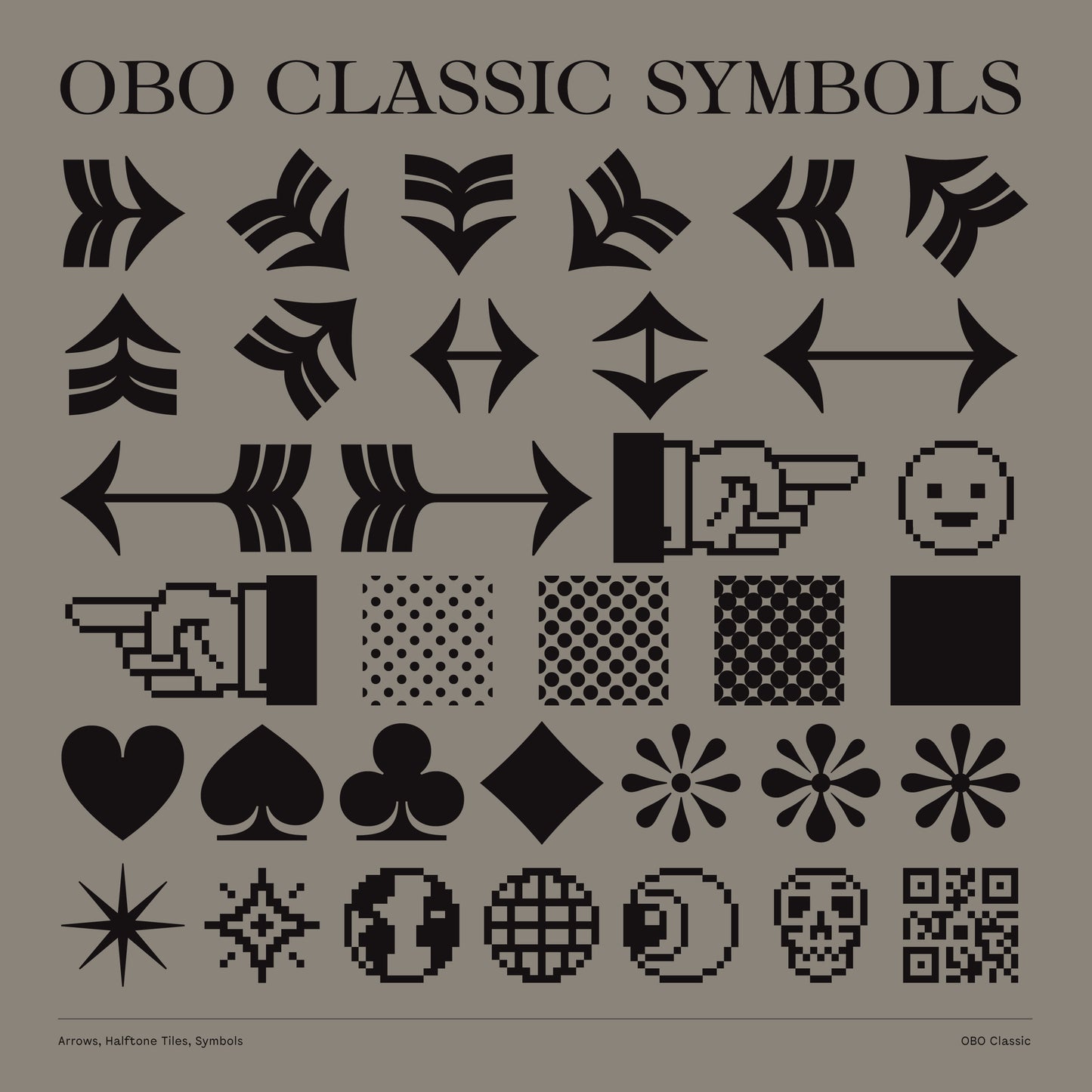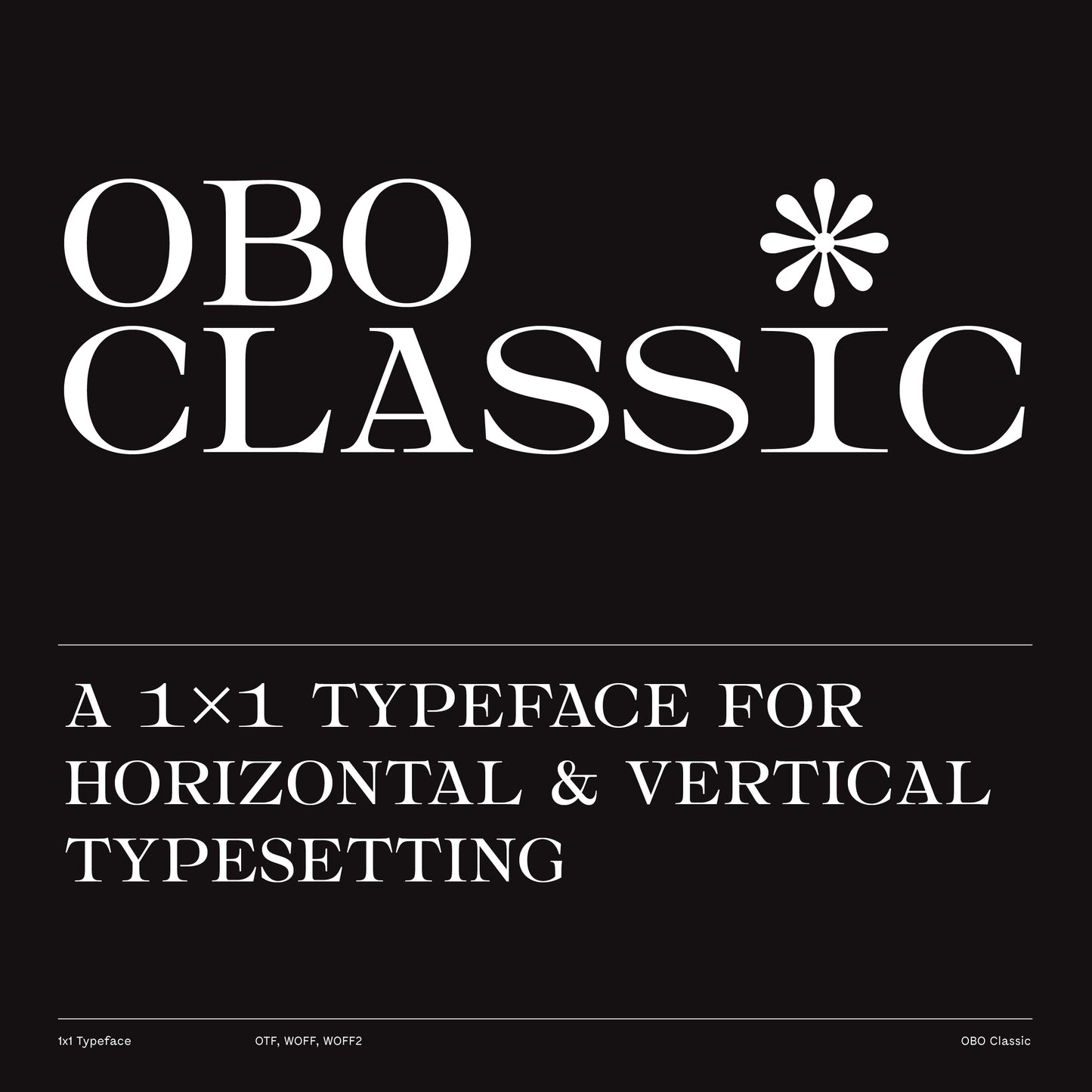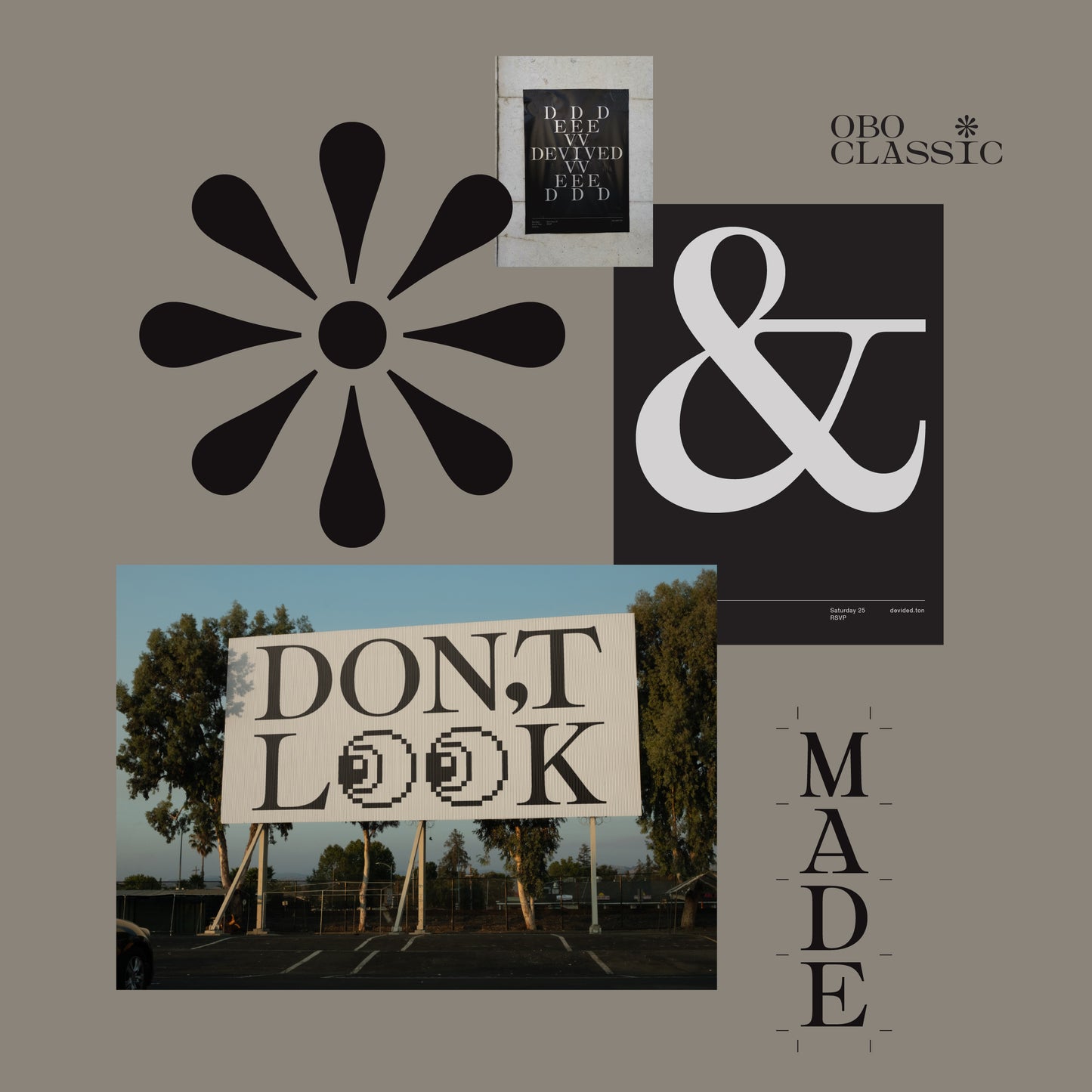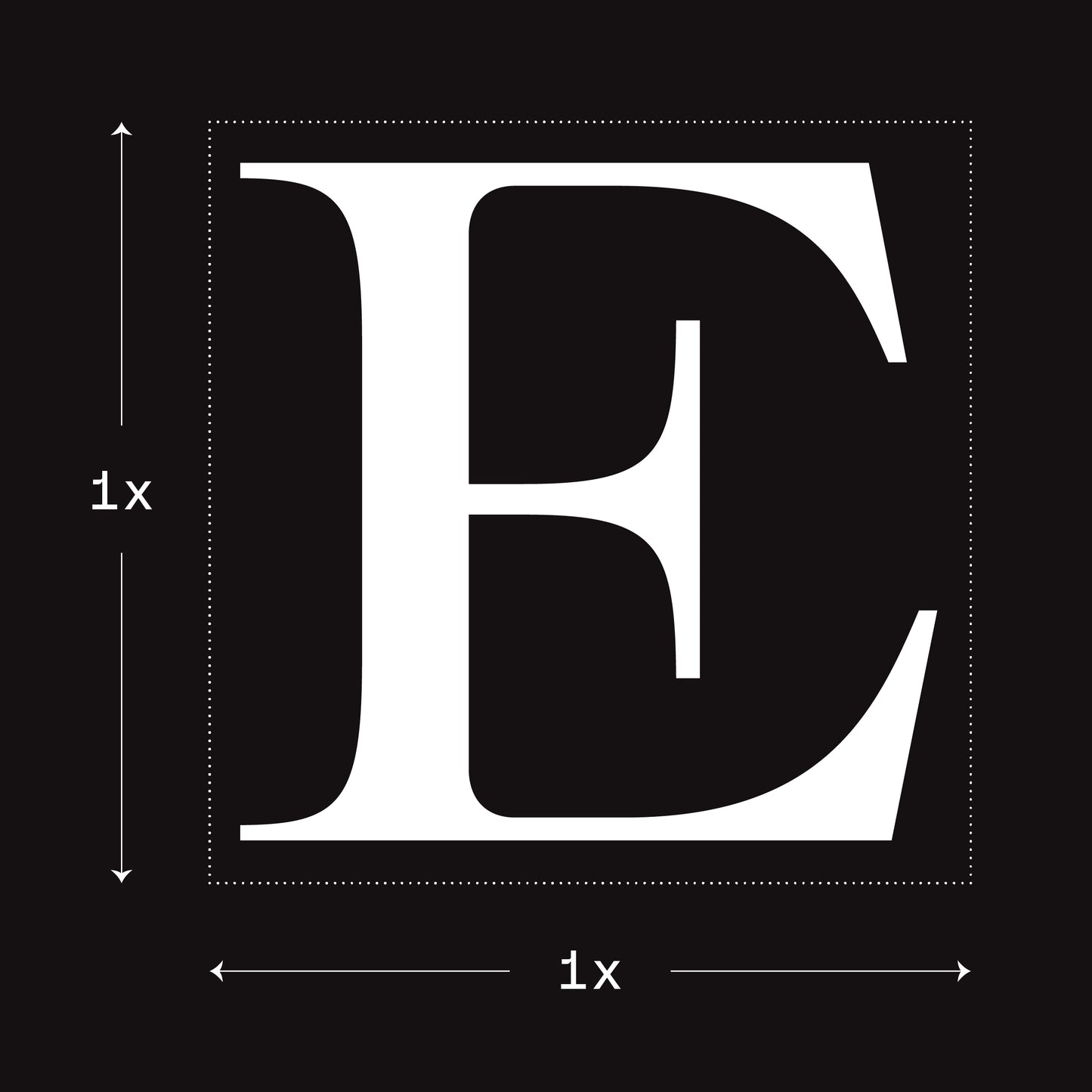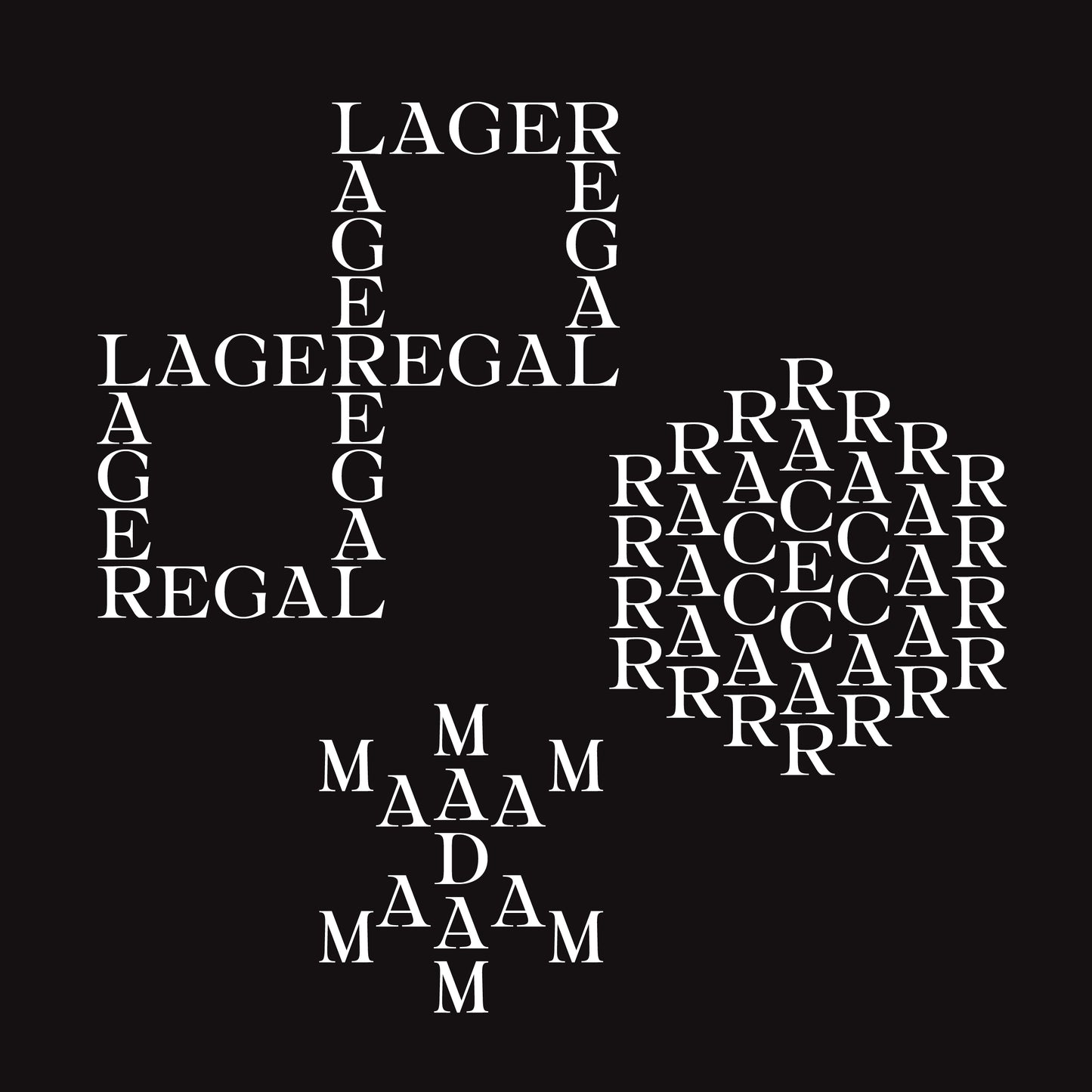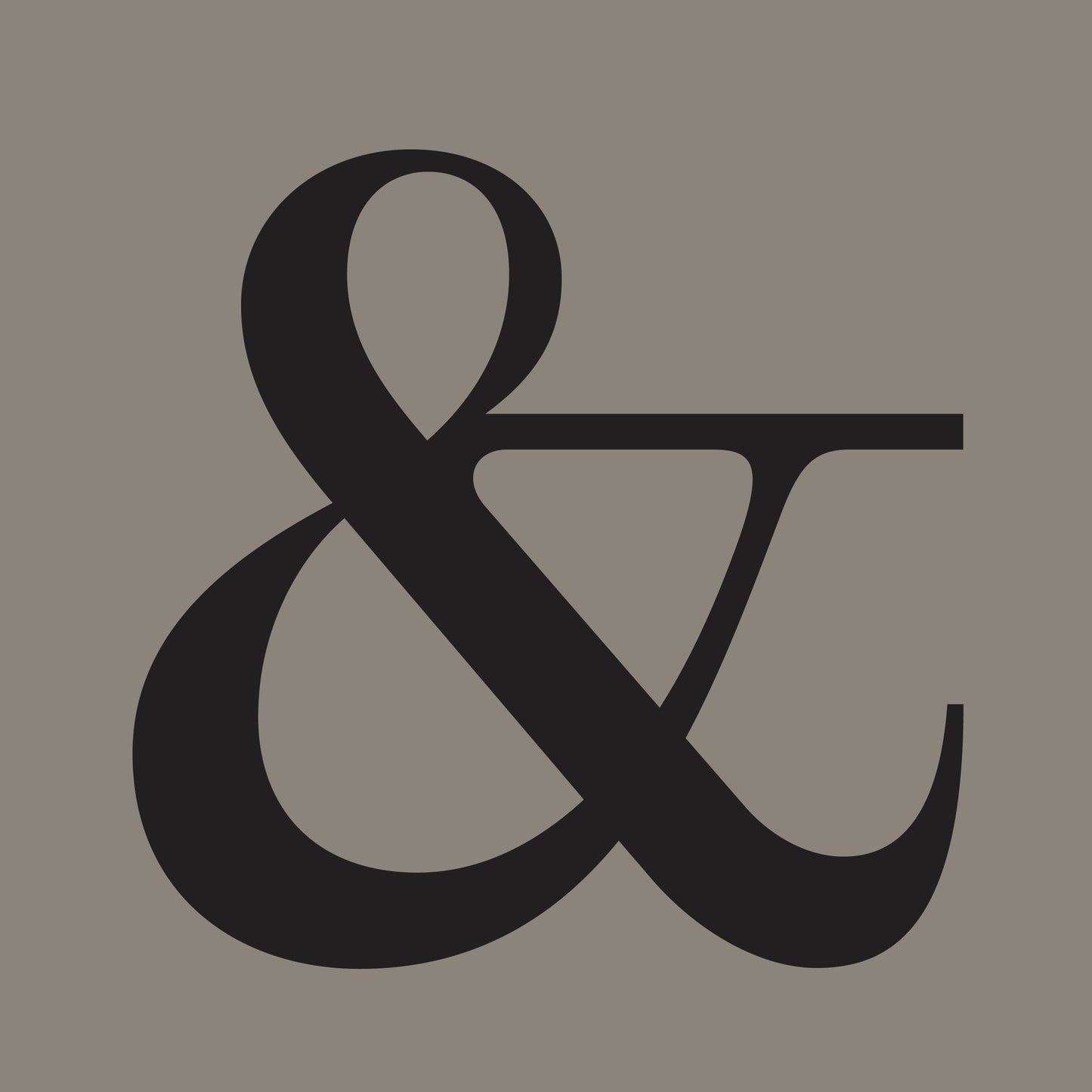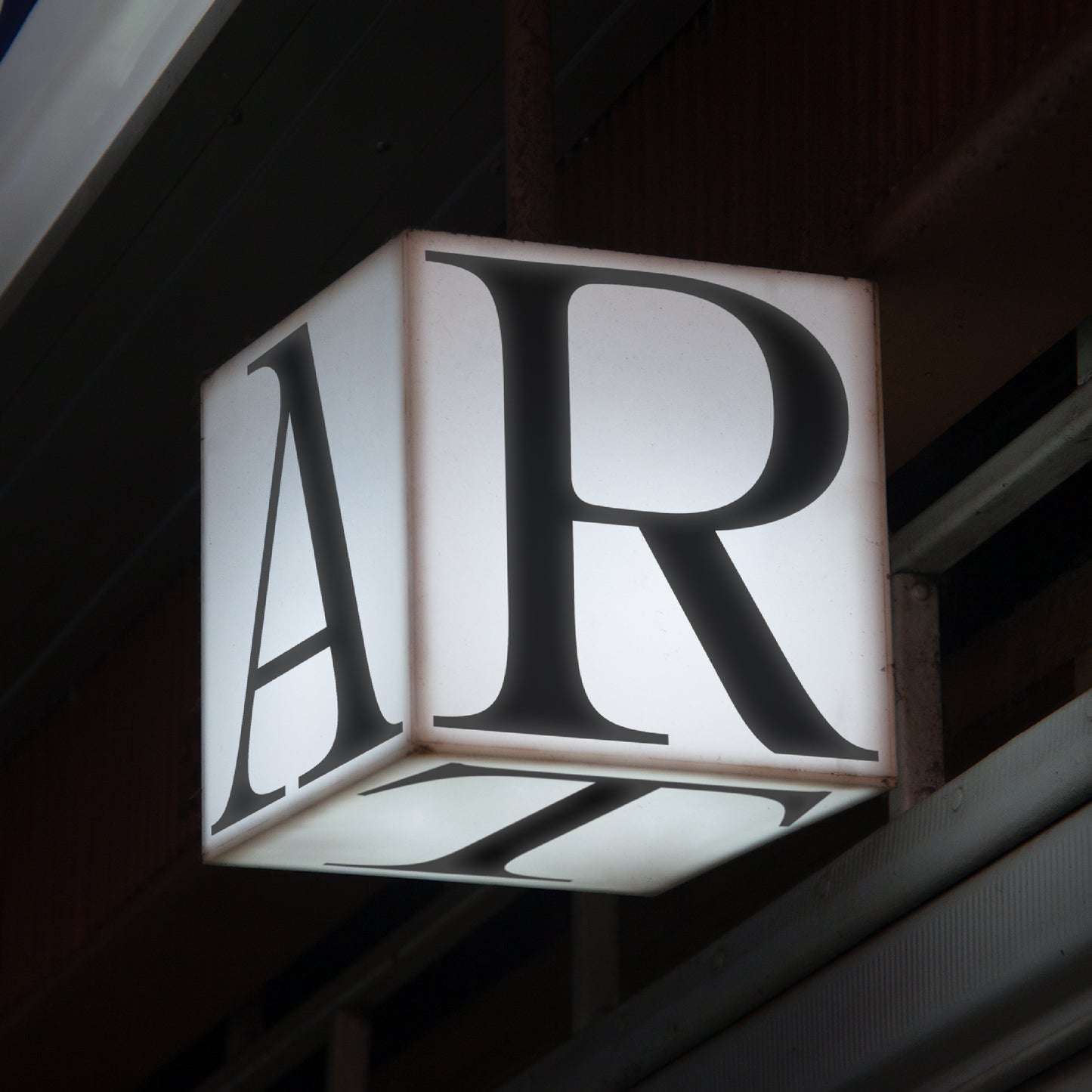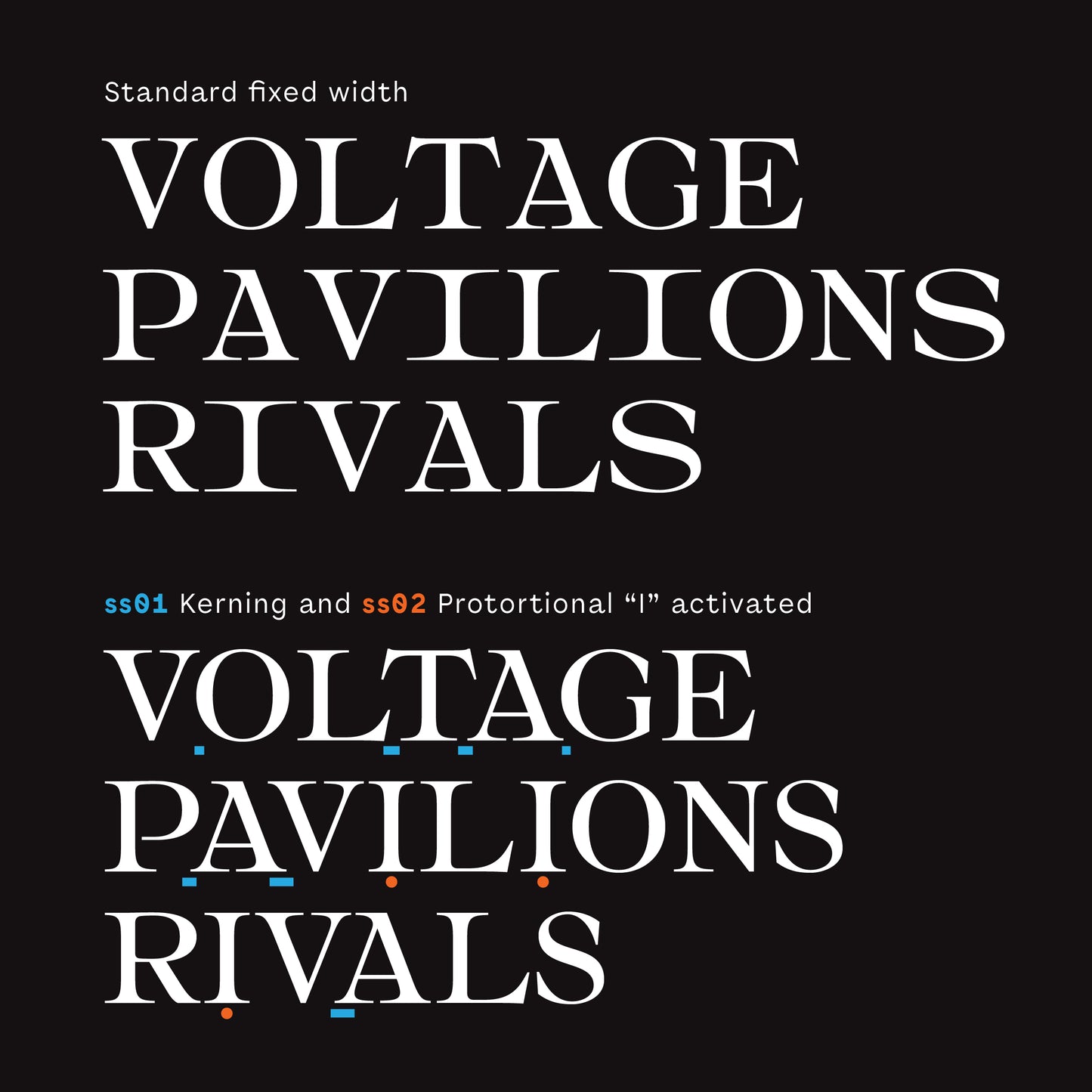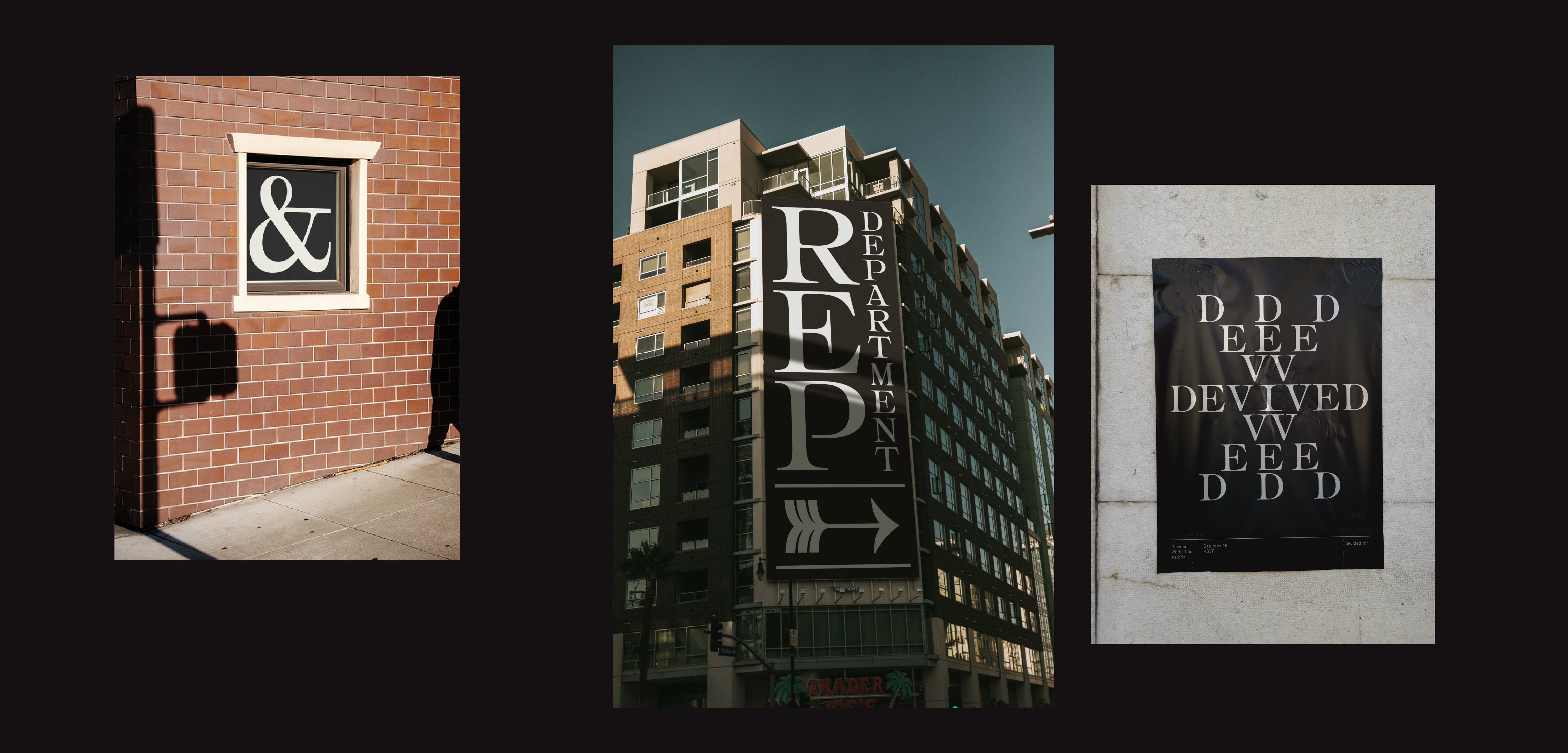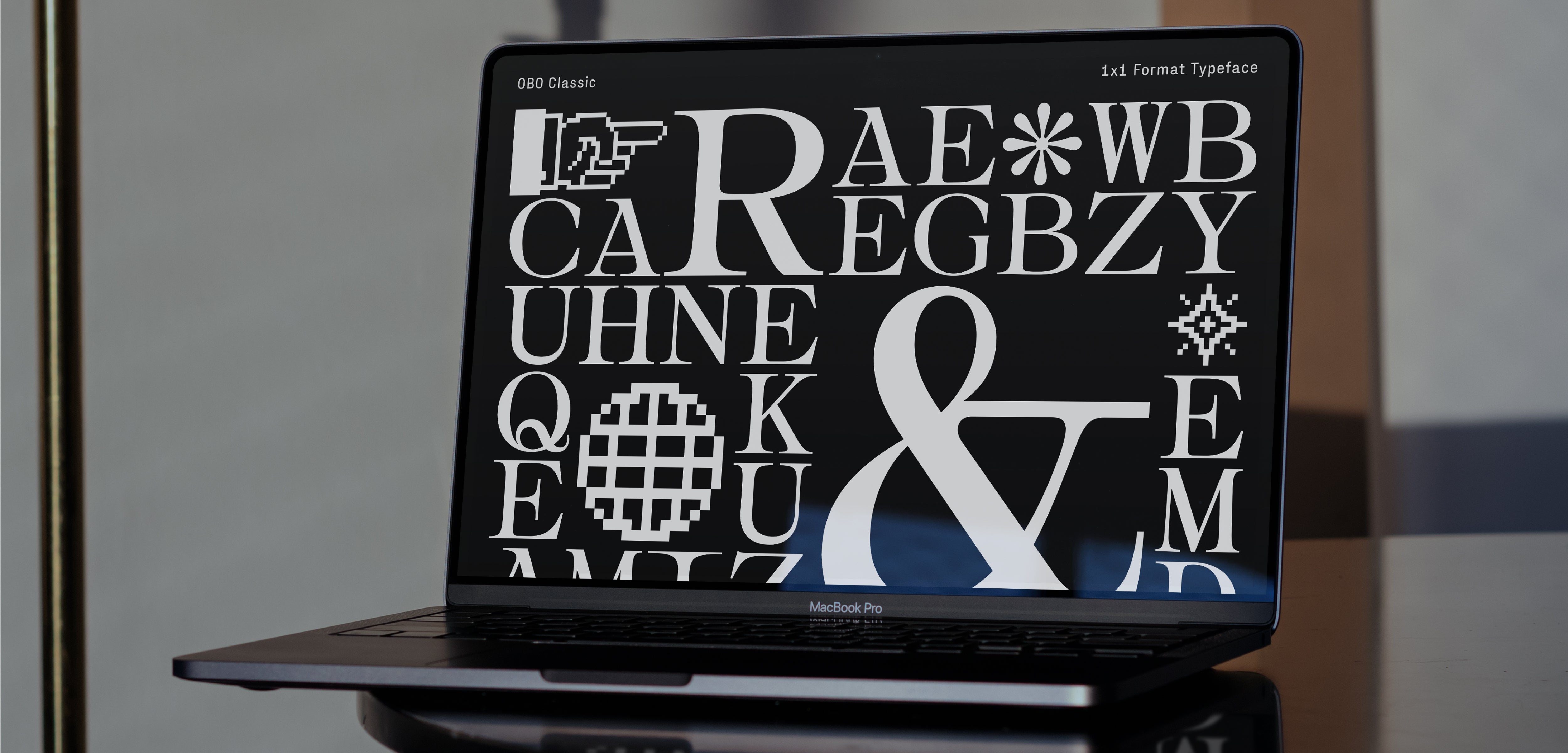
OBO Classic
Juri Zaech
OBO Classic is a display interpretation of a traditional Old Style Serif. Every character maps to a 1×1 square, enabling horizontal, vertical, or mixed settings. This constraint creates unusual proportions compared to what we expect from classic serifs, and results in a monospaced design. While each letter feels conventional in isolation, the overall texture feels surprisingly contemporary.
A few punctuation and special characters are half-width for better spacing, and word space width can be adjusted via OpenType stylistic sets. For horizontal-only settings, kerning can be enabled for a cleaner texture across words and phrases.
Best set large, OBO Classic is most at home in editorial and display contexts. The character set includes a series of icons, some rendered as pixel graphics, adding contrast to the typeface's traditional origins.